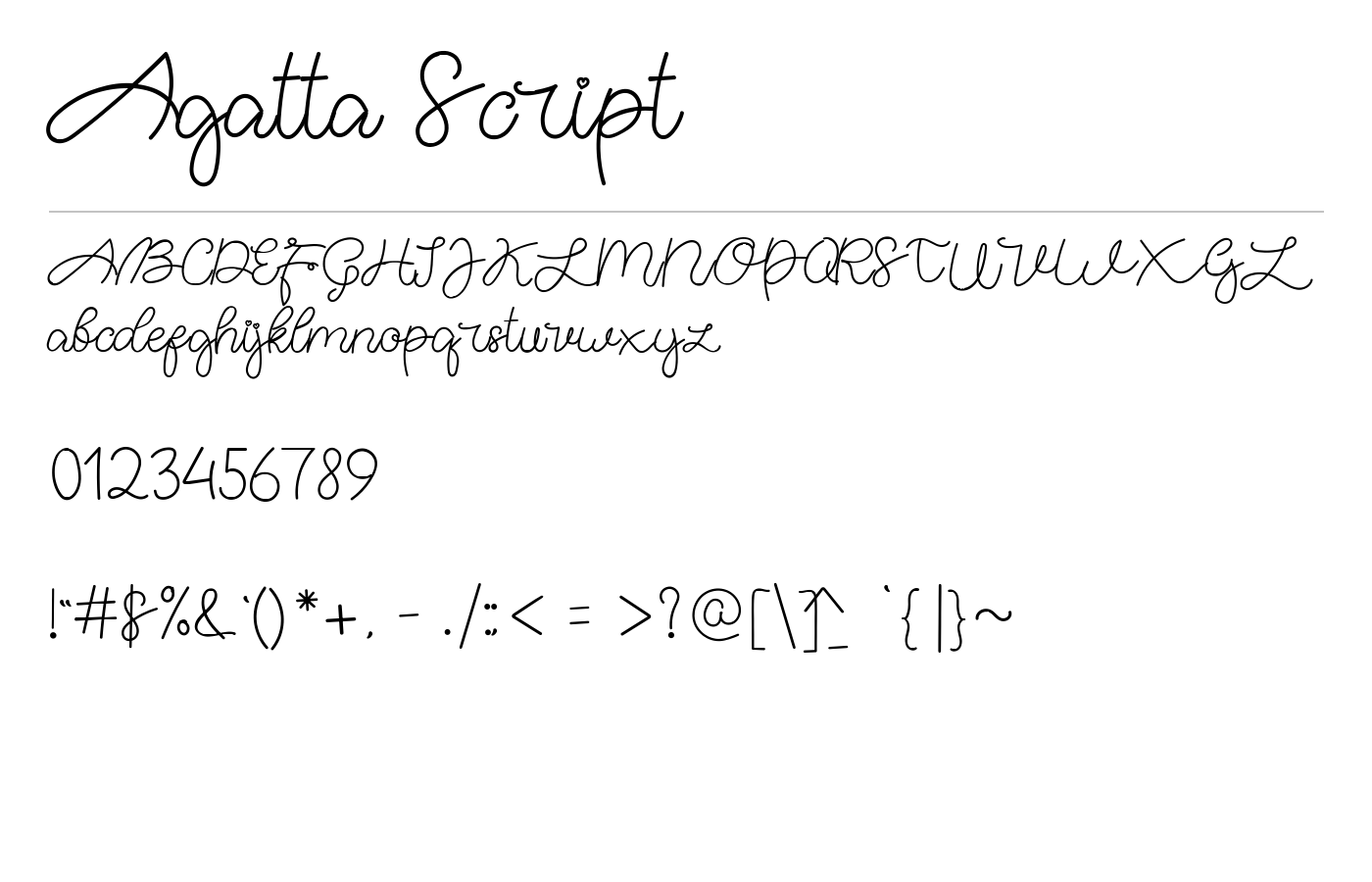
Agatta Script is a delicate, lightweight handwritten font with a casual yet elegant vibe. Its slender, smooth strokes and playful letterforms, including unique details like the heart-shaped dot on the "i," make it perfect for creative, feminine, or romantic designs such as invitations, branding, and stylish logos. This font’s airy feel and refined personality make it ideal for adding a personal and charming touch to projects that seek a warm, approachable look.
Agatta Script Font
About Agatta Script Font
| Font family | Agatta Script Font |
| Designer | Abdul Mimar Hidayat |